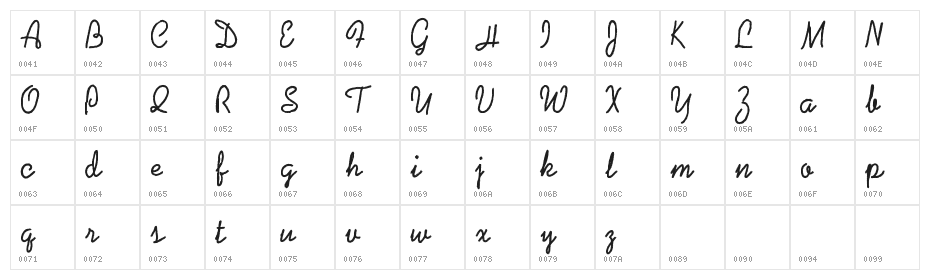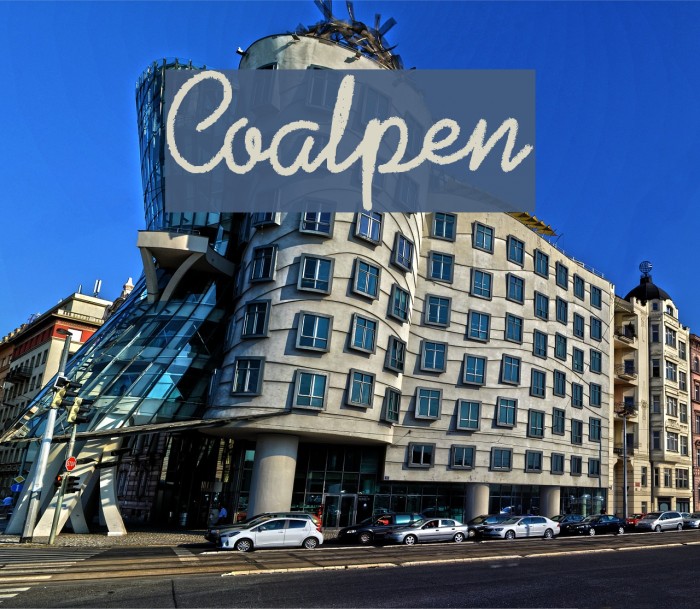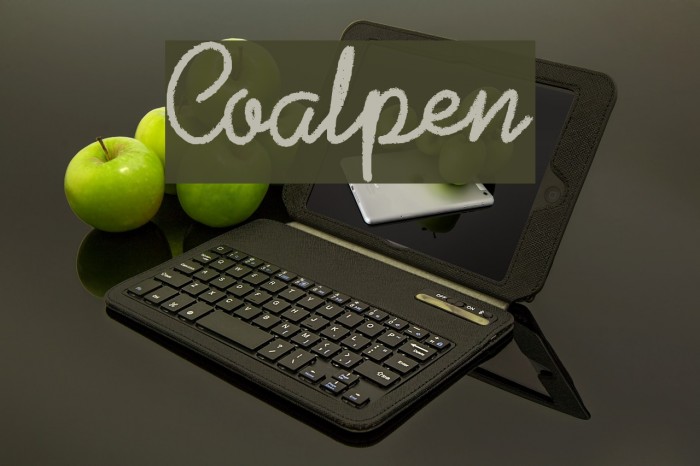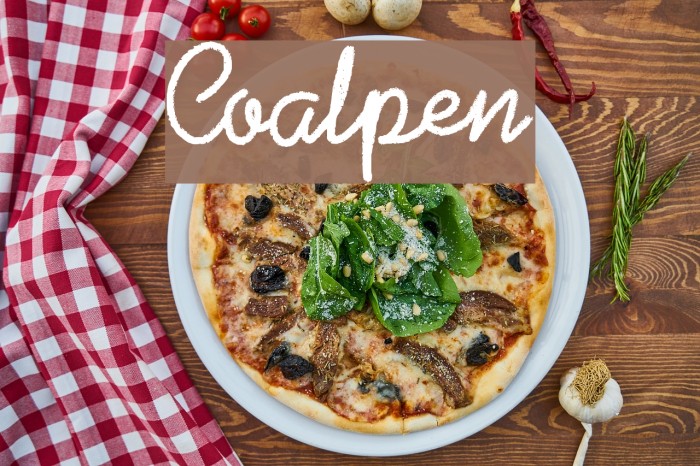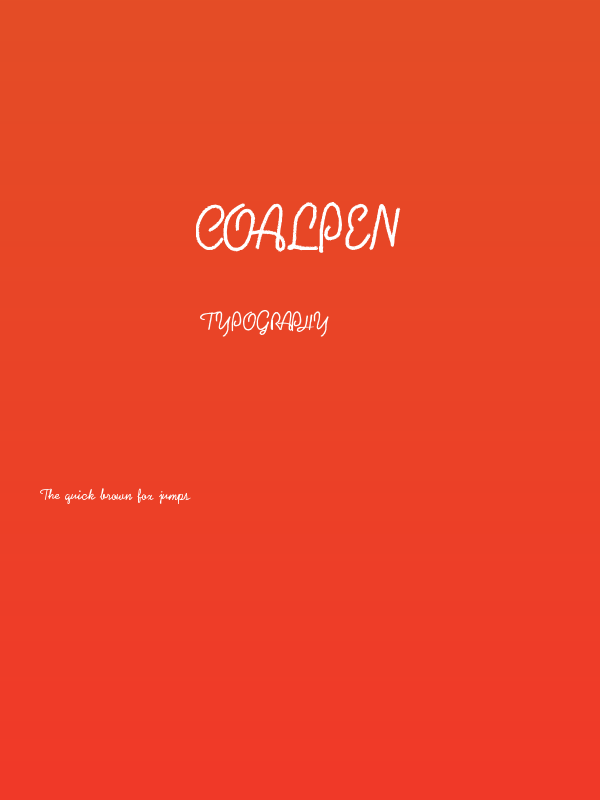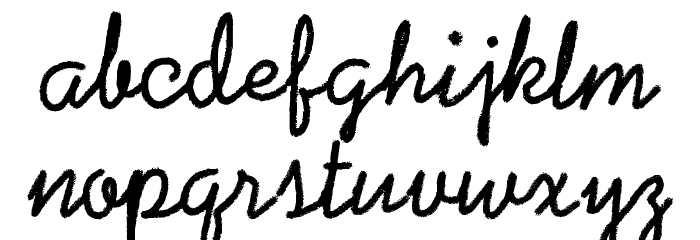
Coalpen Font
Coalpen Description
This font features a dynamic and energetic script style, characterized by its fluid, handwritten appearance. The letters are connected, creating a sense of continuity and flow. The strokes vary in thickness, adding a lively and expressive quality. The uppercase letters are bold and prominent, while the lowercase letters maintain a consistent rhythm. This font exudes a casual yet sophisticated vibe, making it suitable for creative and artistic projects. The overall texture is slightly rough, giving it a handcrafted feel that adds to its charm and uniqueness.
Overall StyleCasual, Artistic
Use CaseLogos, Invitations, Artistic projects
Proposed ProjectsIdeal for invitations, greeting cards, branding, and artistic projects that require a personal touch.